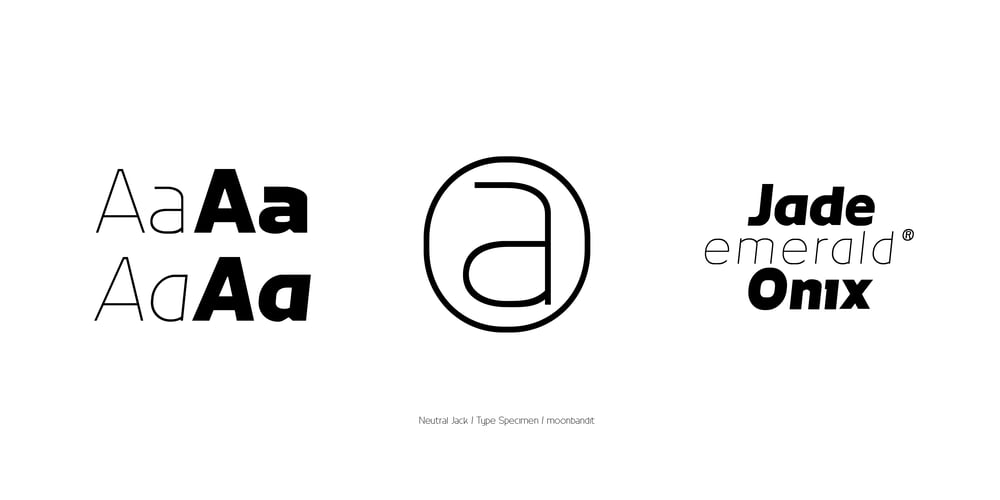
MBF Neutral Jack Font Family was designed by Bramaji Dipa Manggala and published by Moonbandit. MBF Neutral Jack contains 10 styles and family package options. A powerful, versatile and multipurpose font family with modern typeface. Consist of 10 fonts, from extra light for the elegant feel, to black for the biggest impact. Neutral Jack is ready to elevate your brand image.